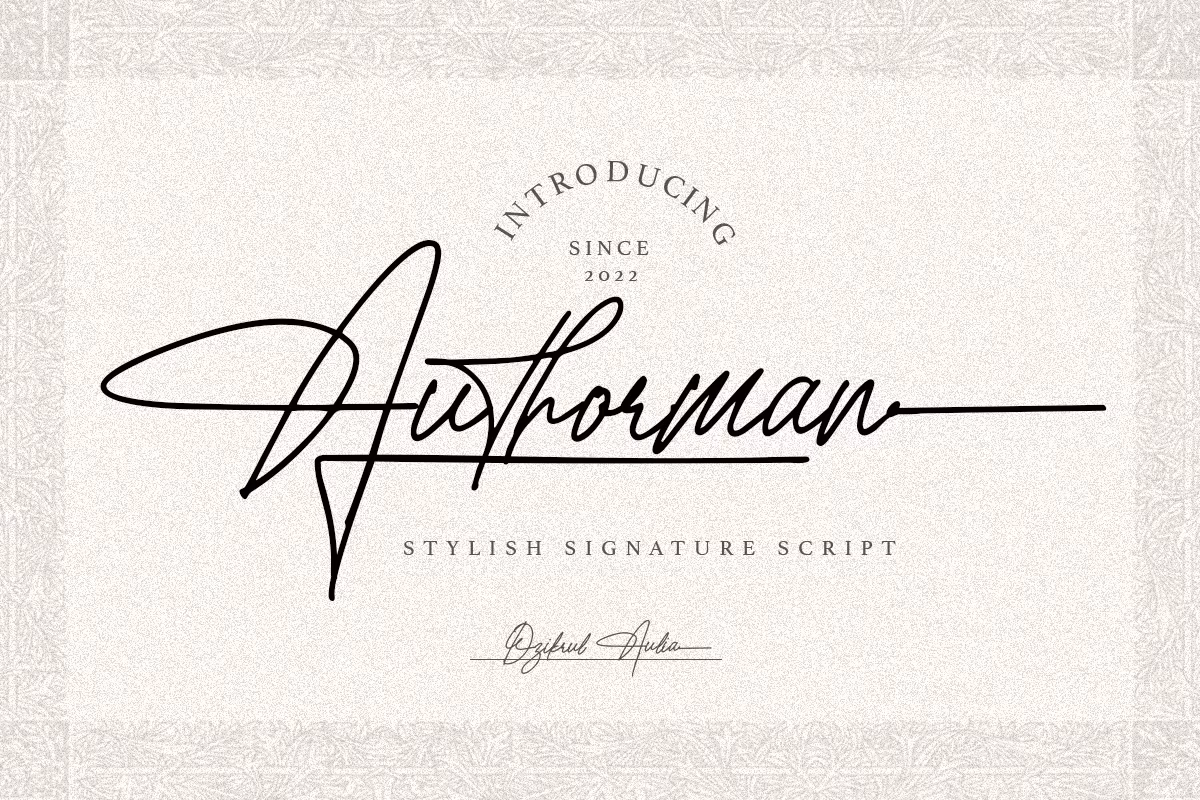
Authorman - Stylish Signature Script Free Download
Authorman - Stylish Signature Script Font Free Download
Please note, to use this font for commercial purposes, you must purchase the full version. Authorman is a sophisticated and elegant signature script font that exudes luxury and creativity. With its flowing, stylish letterforms and unique design, this font is perfect for logos, branding, invitations, and personal projects that require a refined, handwritten touch. Whether you're designing for a high-end brand, a chic wedding invitation, or an exclusive event, Authorman adds a personal and timeless touch to your work. Test it out and enjoy free download access for personal use. Experience the beauty and elegance of Authorman - Stylish Signature Script Font Free Download before purchasing the commercial license. Add a graceful, signature style to your designs with Authorman.